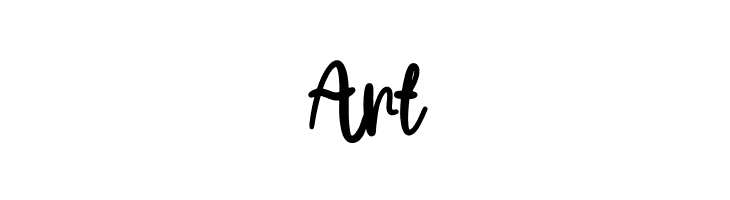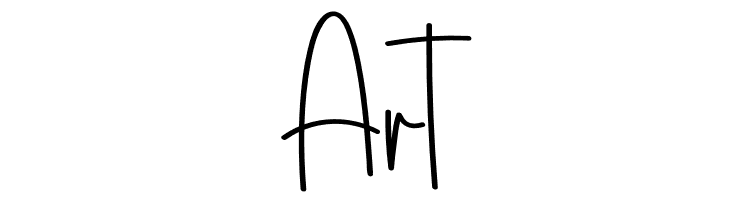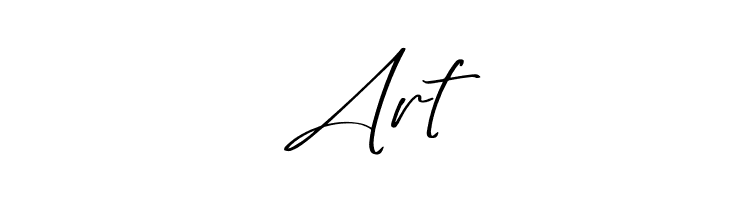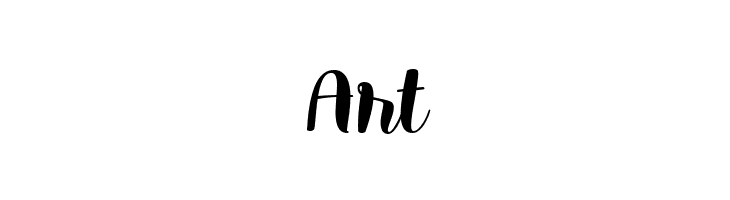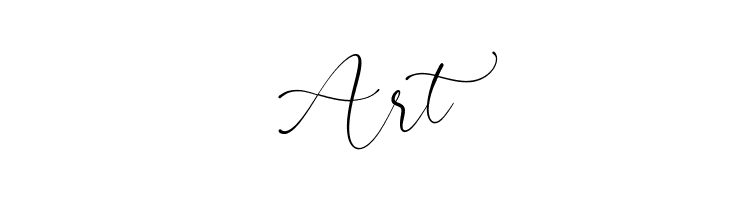
Beautiful Spring Font
Font by Graphix Line Studio
Casual handwritten script with rounded, playful forms.
Before Christmas Font
Font by Aquariid Design
Bold, playful handwritten script with connected letters.
Bronwish Albilone Font
Font by Perspectype Studio
Casual, modern handwritten script with playful loops.
Daytonica Font
Font by Timur Type
A graceful, handwritten script with flowing, connected letterforms.
Desember Font
Font by Etik Fatimah
Casual handwritten font with rounded, playful strokes.
Finchbird Font
Font by Graphix Line Studio
Casual handwritten script with smooth, rounded strokes.
Home Santa Font
Font by Scratchones
Tall, narrow, handwritten script with playful, casual strokes.
Kaleesha Mayolla Font
Font by Integritype Studio
Elegant, handwritten script with expressive strokes.
Mathilda Calligraphy Font
Font by Allouse Studio
A delicate, handwritten script with elegant, flowing lines.
moonbright Font
Font by Brittney Murphy Design
A bold, modern script with a handwritten, playful style.
Paul Jackson Font
Font by Fontherapy | Kalifont Studio
Casual handwritten script with playful, energetic strokes.
Pomerans DEMO Regular Font
Font by Hanoded
Hand-drawn, whimsical sans-serif with tall, narrow letters.
Purify Signature Font
Font by Aestherica Studio
A casual, signature-style handwritten script with tall, thin letters.
Rathskeller Font
Font by Alpaprana Studio
Casual, handwritten sans-serif with rounded, playful forms.
Roslyna Font
Font by RantautypeStudio
Elegant, thin handwritten script with a natural flow.
Sham Font
Font by Andi Moz
Tall, whimsical handwritten script with high contrast and playful curves.
Specials Demo Font
Font by NihStudio
Expressive, loose handwritten script with thin, flowing lines.
staies Font
Font by Mariyana
Playful handwritten script with tall, looping forms and thin strokes.